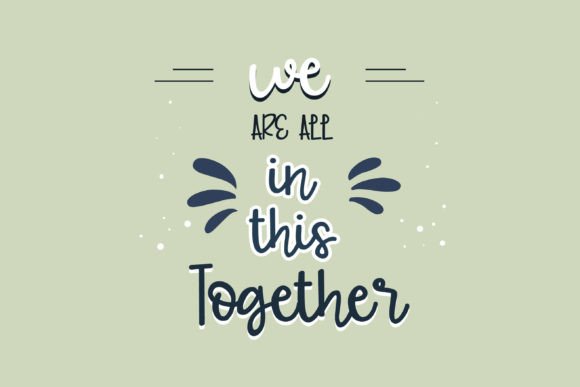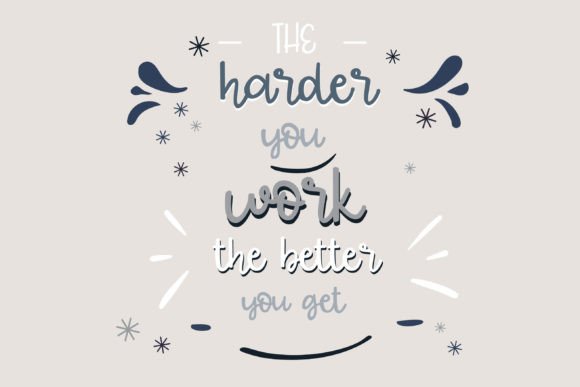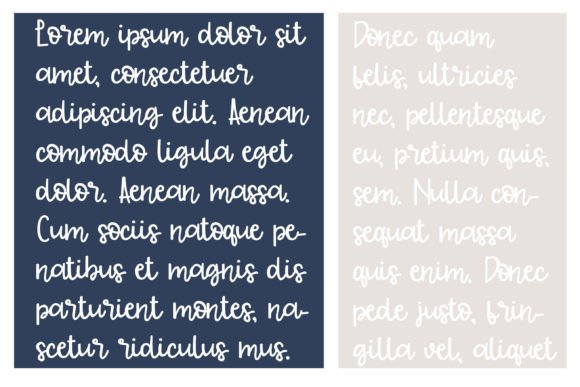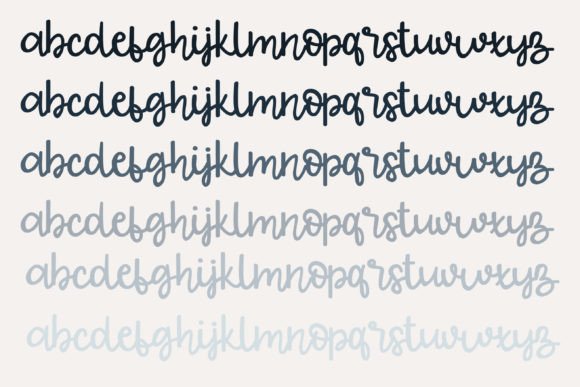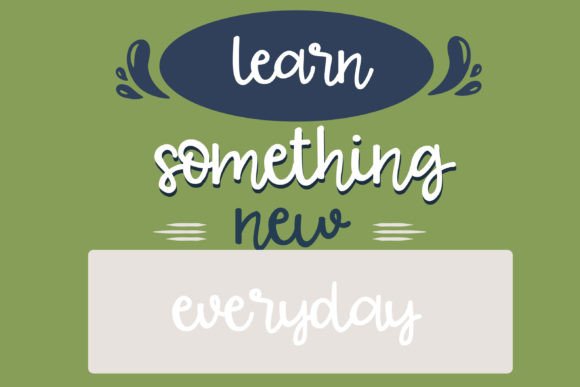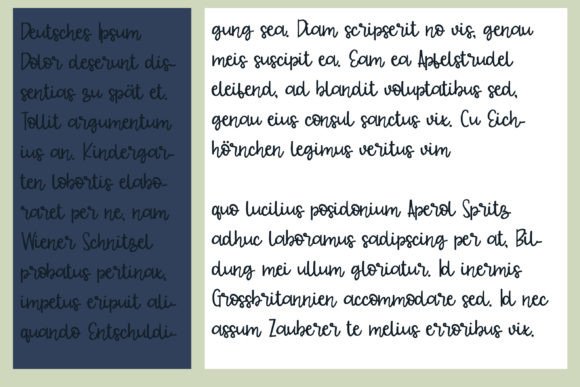
Introduction to Peashooter Font
Have you ever found yourself stuck in a creative rut, desperately searching for the perfect font to elevate your project? You’re not alone. As designers, we’ve all been there – pouring over countless options, only to settle for something that’s just ‘good enough.’ But what if I told you there’s a font that can change the game? Enter the Peashooter Font, a stunning handwritten font that’s about to become your new go-to design resource.
With its unique blend of elegance and modernity, the Peashooter Font is the perfect addition to any creative project. Its flowing lines and personalized touches create a sense of warmth and approachability, while its clean and minimalist design exudes a sense of sophistication and modernity. And the best part? You can download it for free, giving you the freedom to experiment with this high-quality design resource without breaking the bank.
Whether you’re working on a personal project or a commercial one, the Peashooter Font is a valuable asset that’s sure to impress. Plus, with its transparent background, you can easily customize it to fit your project’s needs. So why settle for anything less? Get ready to unleash your creativity with the Peashooter Font – your new design best friend awaits.
Key Features of Peashooter Font
- Transparent background, allowing for seamless integration with graphics and images
- Unique, playful design inspired by the classic Plants vs. Zombies Peashooter character
- Perfect for use in digital design projects, such as logos, graphics, and typography-based art
Honest Review: Peashooter Font
As a designer, I’m always on the lookout for high-quality design resources that can elevate my creative projects. Recently, I stumbled upon the Peashooter Font, and I’m excited to share my honest review.
- ✨ Unique and quirky design that adds a playful touch to any project
- ✨ High-quality font with clear, crisp lines that render well in various sizes
- ⚠️ Limited character set, which may not be suitable for projects requiring a wide range of characters
- ⚠️ Transparent background may not work well with all design elements or backgrounds
Overall, I’m impressed with the Peashooter Font’s unique design and high-quality rendering. While it may not be suitable for all projects, it’s an excellent resource for designers looking to add a playful touch to their creative projects. I’d definitely recommend it as a design resource, especially for those working on free download projects.
Getting the Most Out of Peashooter Font
For optimal results, use the Peashooter Font with a transparent background to give your design a clean and modern look. Experiment with different font sizes and styles to add depth and visual interest to your creative project.
The Peashooter Font is ideal for various design projects, including branding, logos, graphics, and digital art. Its high-quality design makes it perfect for creative projects requiring a unique and eye-catching font.